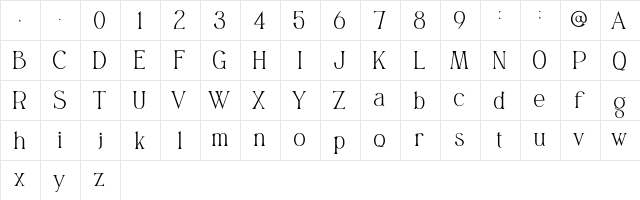
Panerah Regular
| Designer | Muhammad Romzul Khoir |
Design Context for Panerah Typeface
Panerah takes a measured approach to typography — its balanced proportions and neutral character make it a reliable workhorse for both digital and print work.